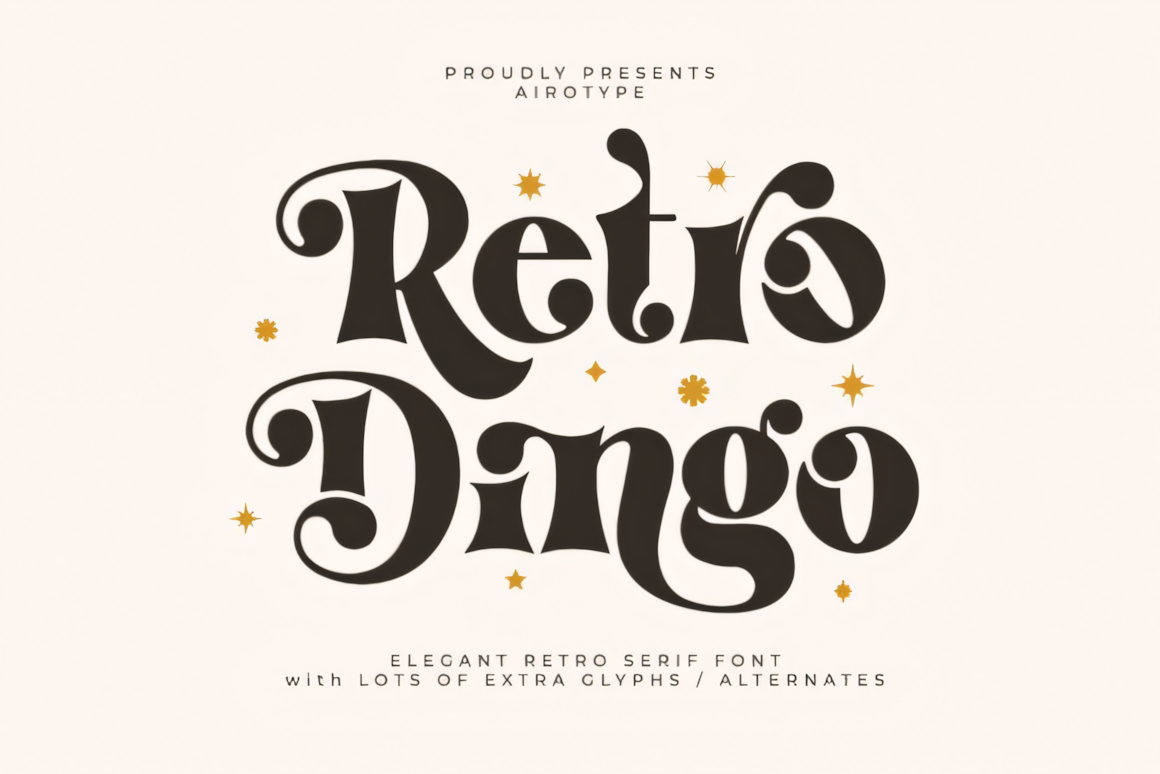
Retro Dingo Font
Retro Dingo is an elegant and modern serif font with an old-school aesthetic, perfect for creating nostalgic looks and quirky design elements. Its quirky character encapsulates beautiful serif font style.
This font is ideal for projects that call for an elegant vintage aesthetic, such as wedding invitations, branding, photography, stickers sublimation and quotes; among many other uses.